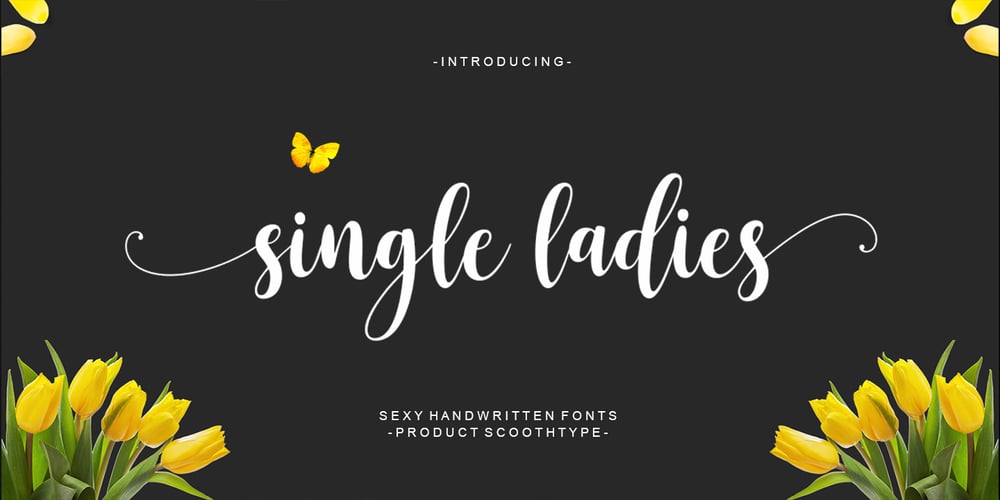
Single Ladies Font Family was designed by Muammar and published by Scoothtype. Single Ladies contains 2 styles and family package options. Single Ladies are sexy handwritten fonts with varied basic lines, designed to convey elegance and style, clean and lightweight. Perfect for logos, magazines, menus, books, invitations, wedding / greeting cards, packaging, labels, t-shirts, etc. All of your designs will have an amazing homemade touch with Single Ladies.Single Ladies are coded with Unicode PUA, which allows full access to all additional characters without having special design software. Mac users can use Font Book, and Windows to attach your favorite text editor / application.To activate the OpenType Stylistic alternative, you need a program that supports OpenType features such as Adobe Illustrator CS, Adobe Indesign & CorelDraw X6-X7, Microsoft Word 2010 or newer versions. and there are additional ways to access alternatives / swashes, using Character Maps (Windows), Nexus Fonts (Windows), Font Books (Mac) or software programs such as PopChar (for Windows and Mac).